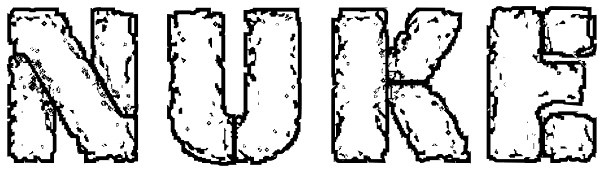
Nuke
To grunge or not to grunge. Is grunge back? Maybe. Maybe it never left. Maybe it was just hiding around the corner waiting for the right time when it is needed again. We have a theory that if grunge makes a comeback, it will be vastly different than...